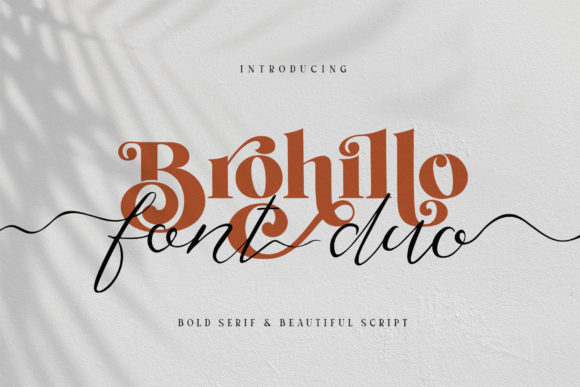
Brohillo Font
Brohillo is a lovely duo font (serif and script). It has a wide versatility and it will elevate each of your designs. Fall in love with its incredibly versatile style and use it to create gorgeous wedding invitations, beautiful stationary art, eye-catching social media posts, and much more!